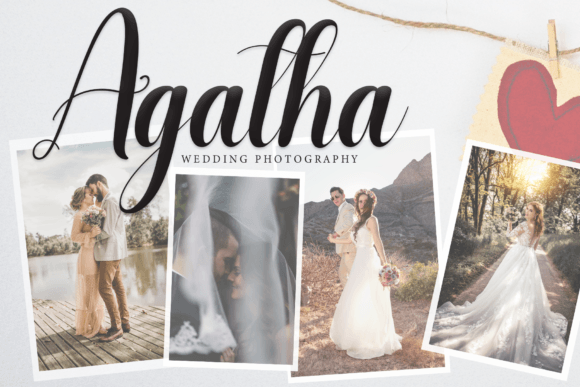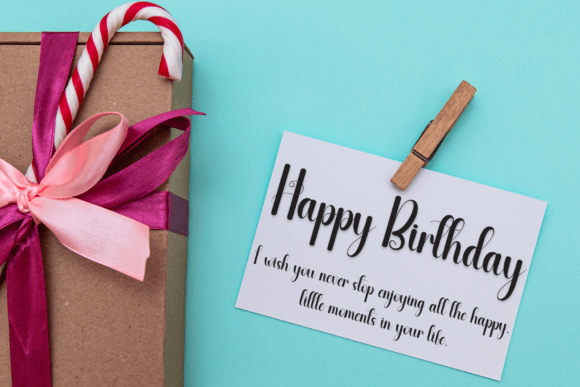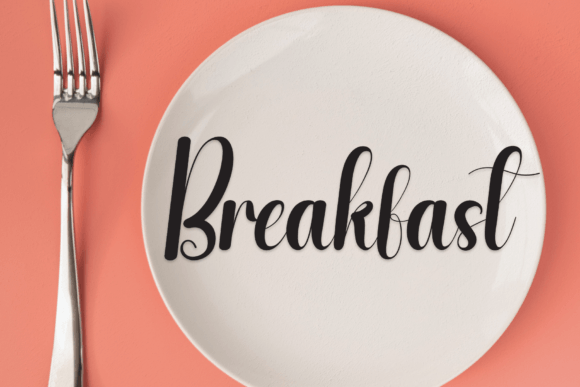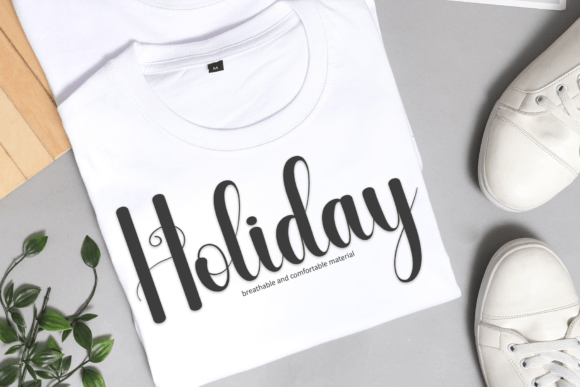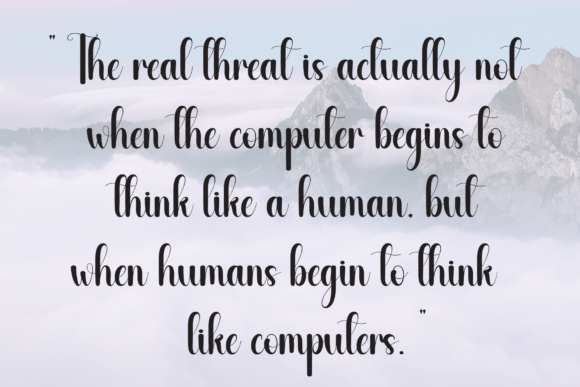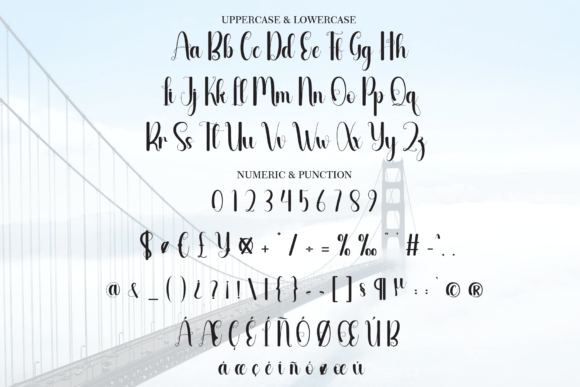
Introducing Bridge Font: The Sweet and Friendly Handwritten Font for Your Creative Projects
Are you looking for a font that can add a touch of warmth and personality to your designs? Look no further than Bridge Font, a sweet and friendly handwritten font that’s perfect for a variety of creative projects. In this article, we’ll take a closer look at Bridge Font, its features, and how you can use it to elevate your designs.
What is Bridge Font?
Bridge Font is a beautiful, handwritten font that’s designed to bring a sense of freshness and neatness to your designs. Its sweet and friendly style makes it ideal for writing wedding invitations, cards, or any other design that might need a fun touch. Whether you’re a designer, crafter, or DIY enthusiast, Bridge Font is a versatile font that can help you create stunning visual content.
Key Features of Bridge Font
So, what makes Bridge Font so special? Here are some of its key features:
- Sweet and Friendly Style: Bridge Font has a warm and inviting style that’s perfect for creating designs that are both personal and engaging.
- Handwritten Look: The font has a beautiful, handwritten look that’s perfect for adding a touch of personality to your designs.
- Fresh and Neat: Bridge Font is designed to be fresh and neat, making it perfect for designs that require a clean and modern look.
- Versatile: The font is versatile and can be used for a variety of creative projects, from wedding invitations to cards, and more.
Use Cases for Bridge Font
So, how can you use Bridge Font in your creative projects? Here are some use cases to get you started:
- Wedding Invitations: Bridge Font is perfect for writing beautiful wedding invitations that are both personal and elegant.
- Cards: The font is great for creating greeting cards, birthday cards, and other types of cards that require a personal touch.
- DIY Projects: Bridge Font is perfect for DIY enthusiasts who want to add a personal touch to their projects, such as scrapbooking, journaling, and more.
- Graphic Design: The font can be used in graphic design projects, such as creating posters, flyers, and brochures that require a friendly and approachable style.
Tips for Using Bridge Font
Here are some tips for using Bridge Font in your creative projects:
- Pair it with Other Fonts: Bridge Font can be paired with other fonts to create a unique and interesting look. Try pairing it with a bold font for a contrasting look.
- Use it in Combination with Images: The font looks great when used in combination with images. Try using it to add a caption to a photo or illustration.
- Experiment with Colors: Bridge Font can be used with a variety of colors to create a unique look. Try experimenting with different colors to find the one that works best for your design.
In conclusion, Bridge Font is a beautiful, handwritten font that’s perfect for adding a touch of warmth and personality to your designs. Its sweet and friendly style makes it ideal for a variety of creative projects, from wedding invitations to cards, and more. With its fresh and neat look, Bridge Font is a versatile font that can help you create stunning visual content. So, if you’re looking for a font that can add a personal touch to your designs, look no further than Bridge Font.